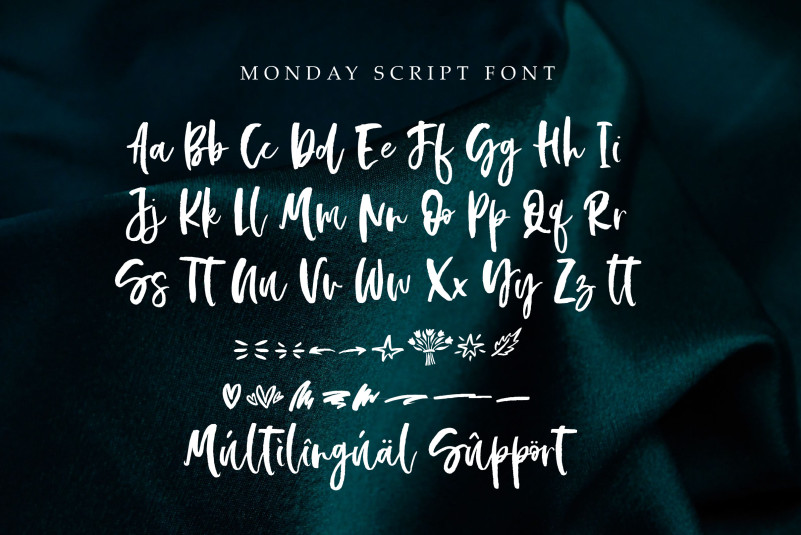
Monday Script Typeface
Monday Script Typeface is a handwritten font: elegant, intricate, and one-of-a-kind. Each letter boasts a fluid, hand-drawn style, featuring delicate curves and sharp, pointed ends that dance across the page. This font is perfect for adding a touch of sophistication and personality to any design project. This font is PUA encoded which means you can access all glyphs and swashes effortlessly!
– Uppercase, Lowercase, Numeral & Punctuation
– Alternate Letters, Ligature & Swash/Tail
– Multilingual & PUA Encoded